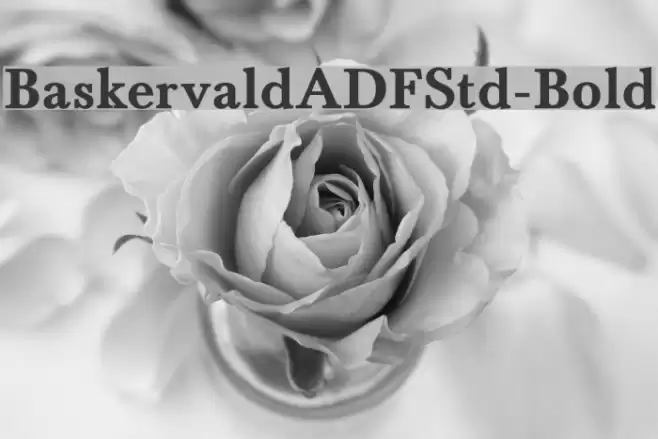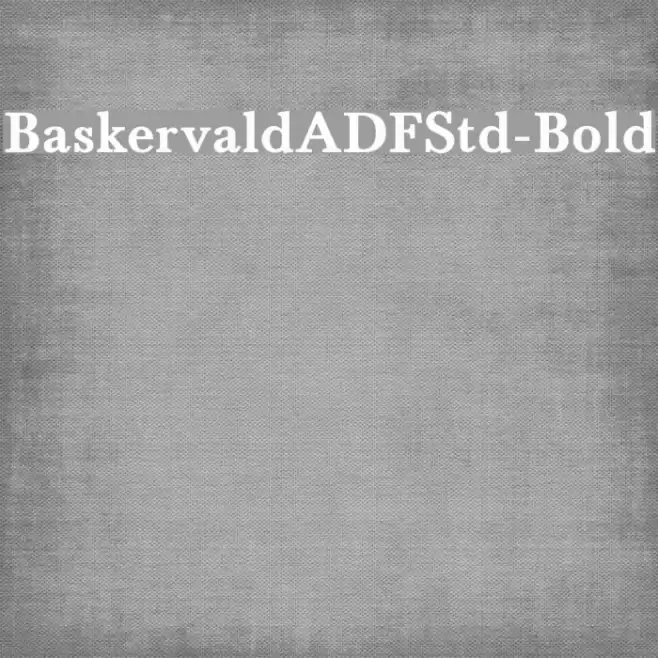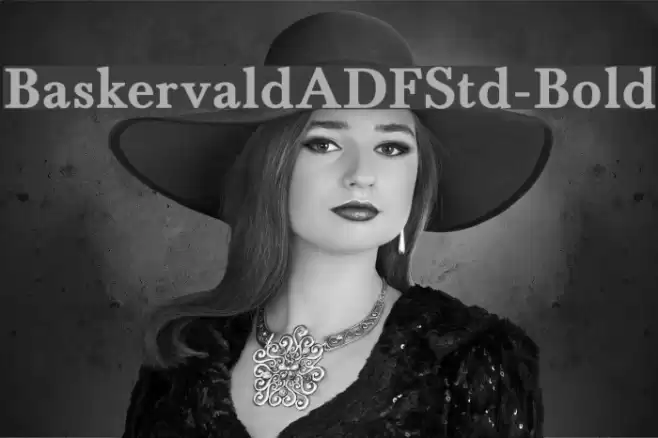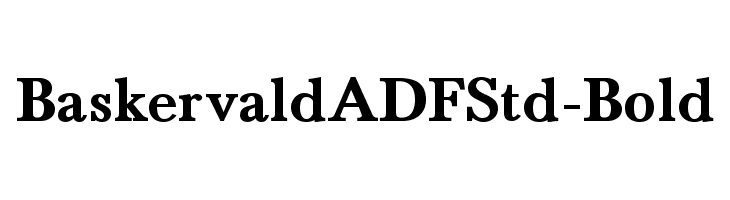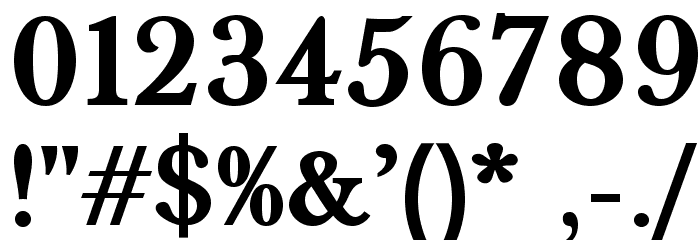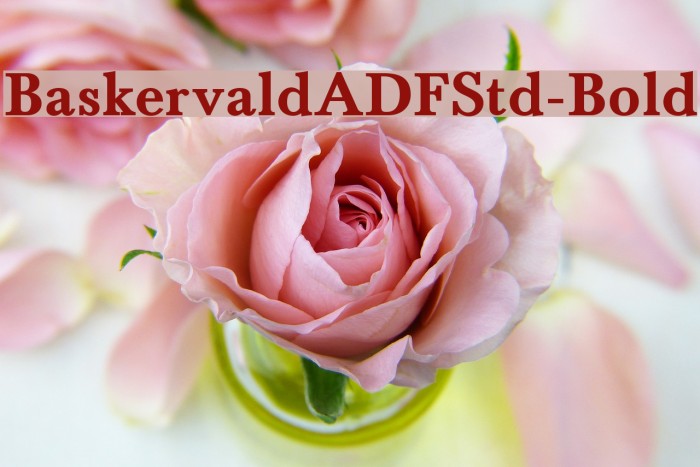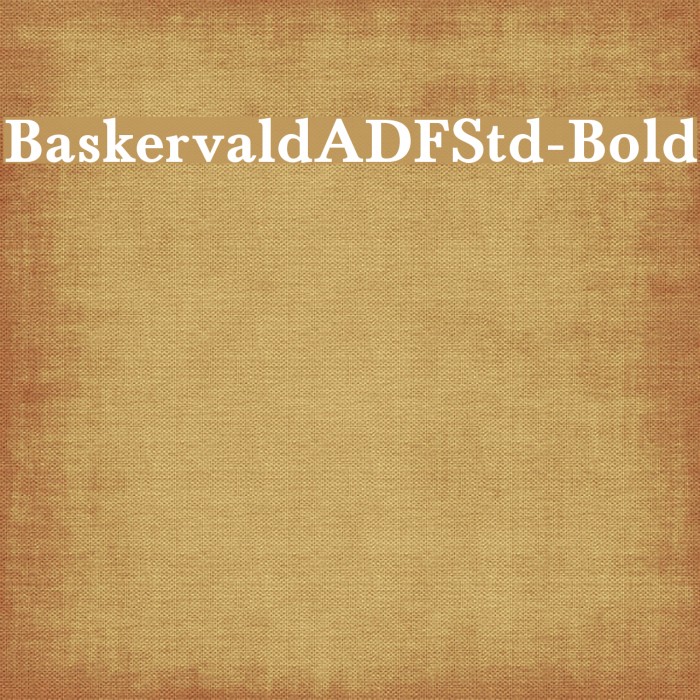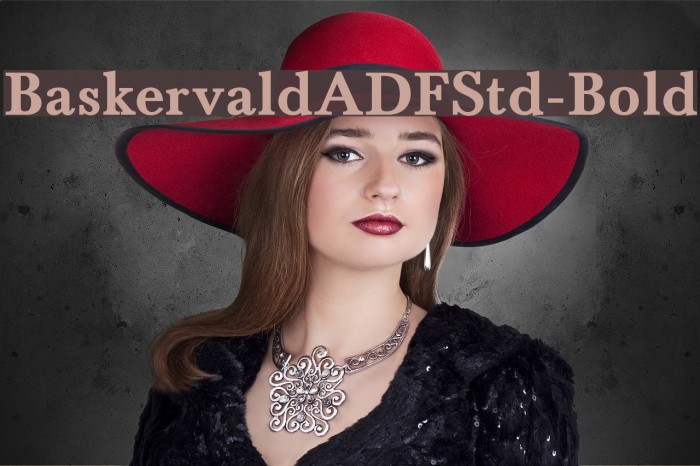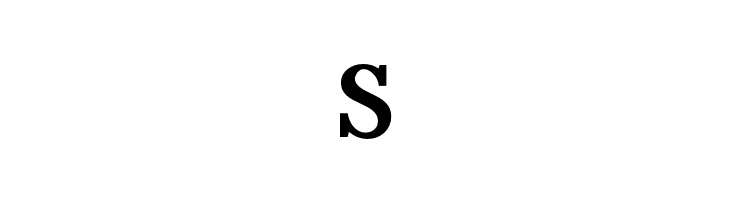
BaskervaldADFStd-Bold Font
BaskervaldADFStd-Bold Description
This font exhibits a classic serif style with pronounced, elegant strokes and a bold weight. The serifs are sharply defined, providing a traditional and authoritative appearance. The uppercase letters are well-proportioned, with a slight contrast between thick and thin strokes that enhances readability. The lowercase letters maintain a consistent style, with rounded forms that add a touch of softness to the overall design. The numerals are clear and distinct, making them suitable for both text and display purposes. Special characters are well-integrated, maintaining the font's cohesive aesthetic. This font is ideal for projects that require a sense of sophistication and reliability.
A bold, classic serif font with elegant strokes and high readability from Uncategorized fonts.
- Proposed Projects: Ideal for book covers, formal invitations, editorial layouts, and branding materials.
- Overall Style: Classic